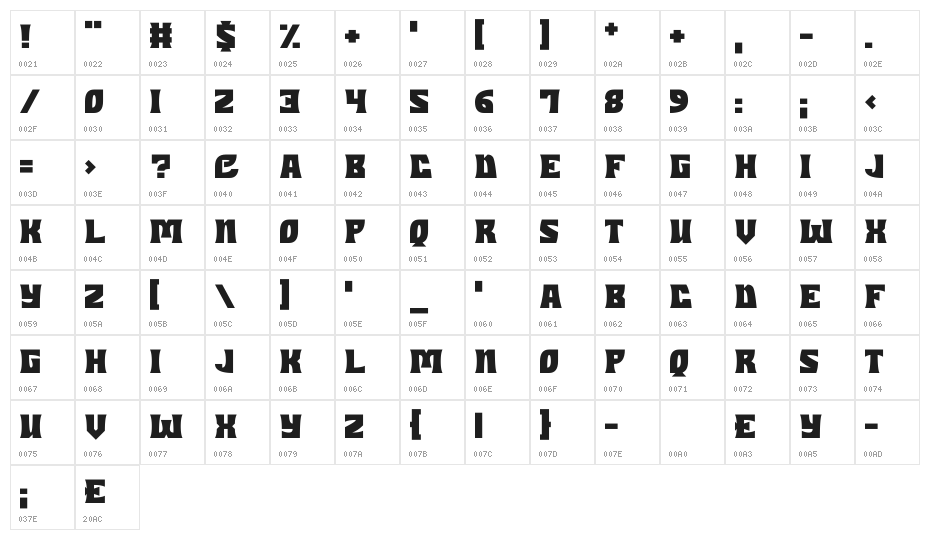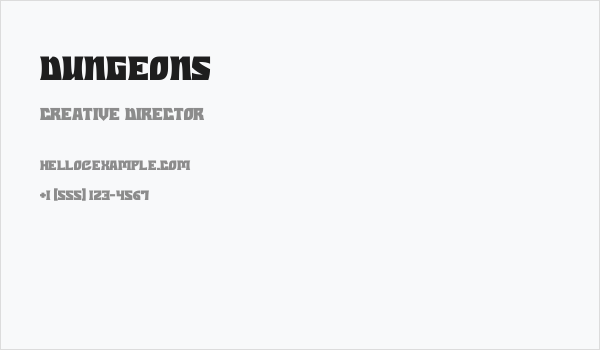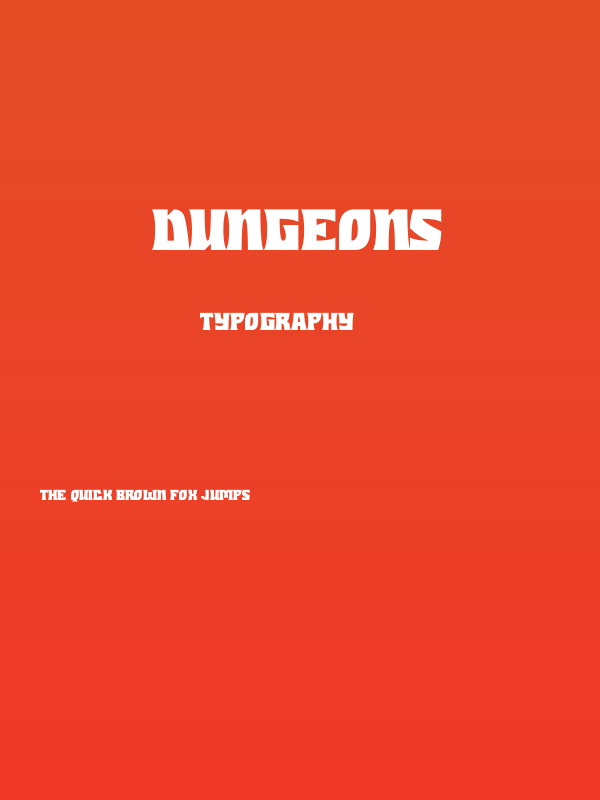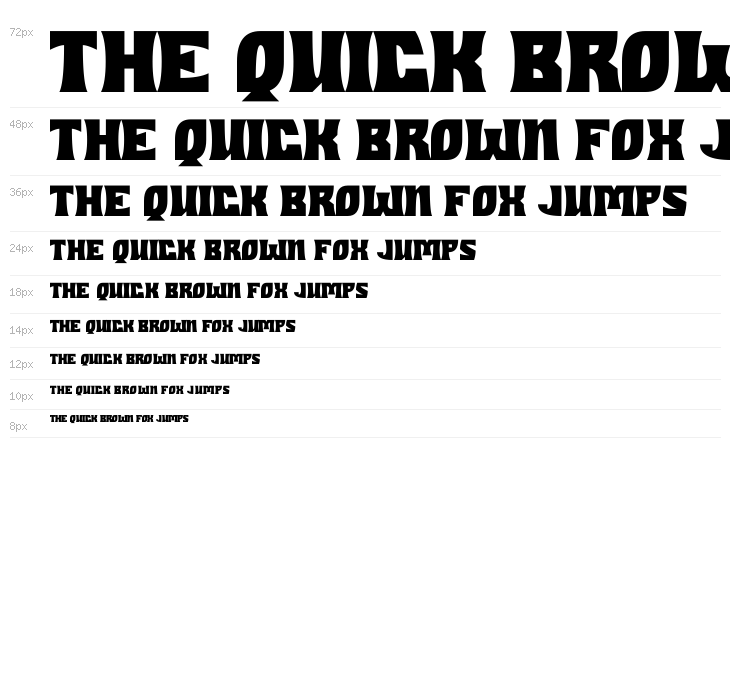
Dungeons Font
Dungeons Description
This font features a bold and dramatic style, characterized by its thick, angular strokes and sharp edges. The letters are designed with a medieval, fantasy-inspired aesthetic, reminiscent of old-world craftsmanship and storytelling. Each character is distinct, with exaggerated serifs and a strong presence, making it ideal for capturing attention. The numbers and special characters maintain the same boldness and angularity, ensuring consistency across all elements. This font is perfect for projects that require a touch of fantasy or historical flair.
| Overall Style | Vintage |
| Proposed Projects | Ideal for fantasy-themed projects, game titles, book covers, and posters. |